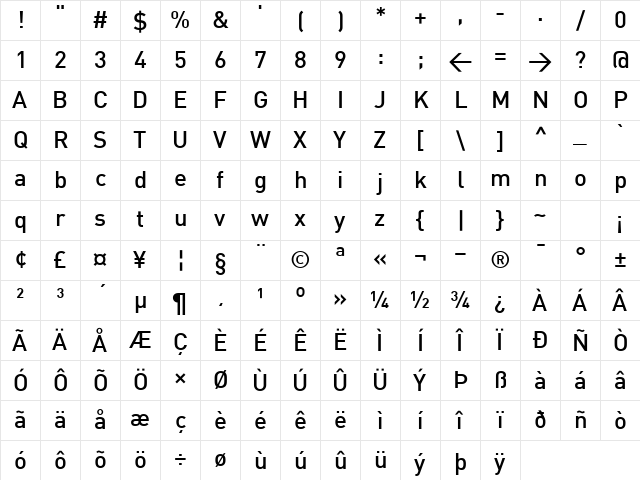
DIN Medium Regular
Complete DIN Medium Regular glyph index. Displaying only characters natively supported by DIN Medium Regular font.
Design Context for DIN Medium
DIN Medium is a composed and adaptable typeface that performs quietly and consistently across a wide range of design contexts.
Pro Tip: Use DIN Medium in both headline and body roles to test its range before committing to a single application.